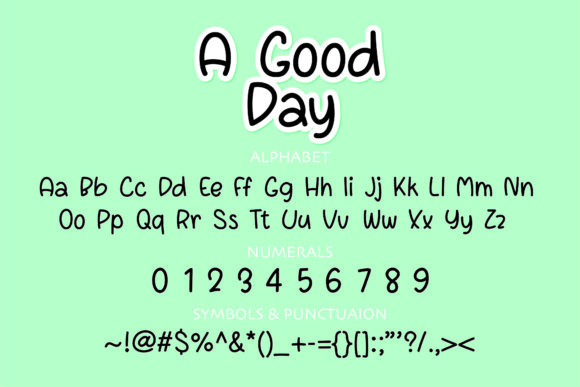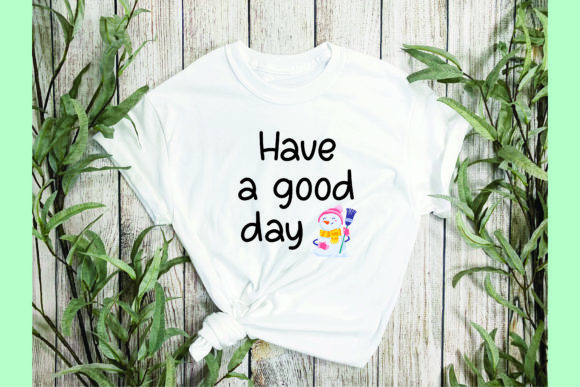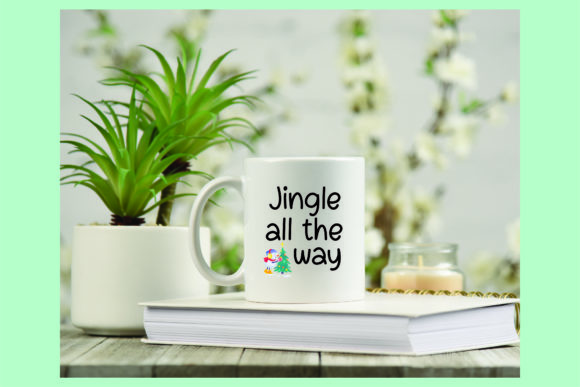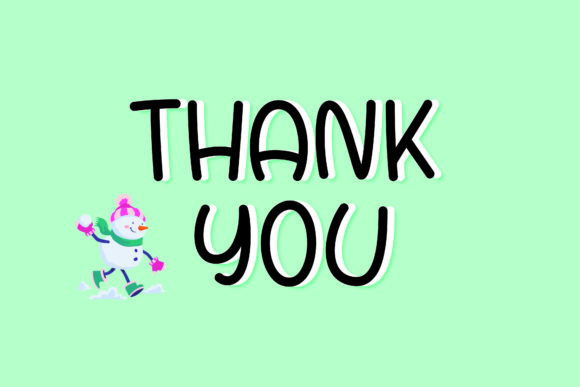
Creating a Chalkboard Charm with A Good Day Font
You know that feeling when you’re brainstorming ideas for a new project, and suddenly, everything falls into place? The words start flowing, and you can see your design coming to life in your mind’s eye. That’s exactly what happened when I discovered A Good Day Font – a charming handwritten font that’s perfect for adding a personal touch to your chalkboard quotes and teaching materials.
A Good Day Font is more than just a font; it’s a way to bring warmth and authenticity to your designs. Its simple, yet elegant lettering makes it an ideal choice for educators, creatives, and anyone looking to add a touch of realism to their projects. With A Good Day Font, you can create eye-catching chalkboard quotes, engaging lesson plans, and even personalized gifts that will leave a lasting impression.
A Good Day Font Key Features
- Font Family: A Good Day is a sans-serif font family designed for optimal readability.
- Unique Characteristics: Features a clean, modern design with a subtle rounded edge, making it suitable for corporate, editorial, and digital design projects.
A Good Day Font Review
I’ve been playing around with the A Good Day Font and overall, I’m impressed. Here’s what I like: ✨ The font has a lovely, modern feel that’s perfect for everyday use. It’s clean, simple, and incredibly legible. ✨ I also appreciate how versatile it is – it works well in both digital and print applications. ✨ The font’s weight range is also well-balanced, making it easy to create visually appealing typography.
Now, let’s talk about the limitations: ⚠️ One thing I’ve noticed is that the font can be a bit too minimalist at times. While I love its simplicity, it may not be the best choice for projects that require a lot of emphasis or drama. ⚠️ Additionally, the font’s character set is not as extensive as some other fonts on the market, which may be a drawback for designers who need to work with non-Latin scripts.
Overall, I’d give the A Good Day Font 4 out of 5 stars. While it may not be perfect for every project, it’s a solid choice for everyday use and a great addition to any designer’s toolkit. If you’re looking for a modern, clean font that’s easy to use, I’d definitely recommend giving it a try.
Recommendation
- Use for: Everyday use, digital and print applications, simple typography projects
- Avoid for: Projects that require emphasis or drama, projects that require an extensive character set
Tips for Getting the Most Out of A Good Day Font
Use A Good Day Font for titles and headings to create a clean and modern look. Pair it with a sans-serif font for body text to create a balanced design. Experiment with different font sizes and colors to add emphasis and visual interest.
A Good Day Font is perfect for:
- Website design and development
- Print materials such as brochures and business cards
- Presentations and slideshows
Alternatives to A Good Day Font for Designers
1. Lato
Lato is a modern sans-serif font designed by Łukasz Dziedzic. It is a versatile font suitable for various projects, including corporate identity, magazines, and digital products. Lato has a clean and elegant appearance, making it a great alternative to A Good Day Font for designers who want a neutral and professional look.
Q: What is the recommended font size and line height for A Good Day Font?
For optimal readability, we recommend using A Good Day Font at a minimum font size of 12 points and a line height of 1.5 to 2 times the font size. This will ensure clear and legible text in most design applications.